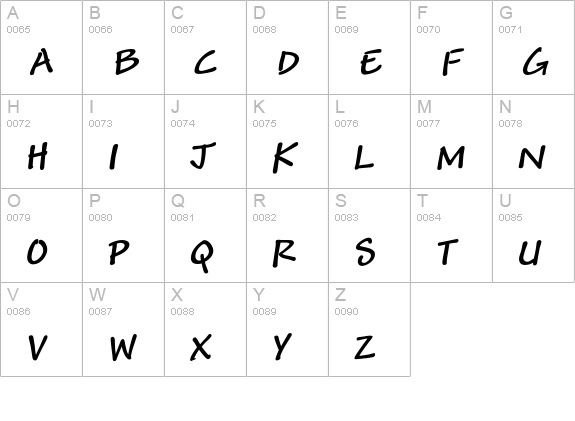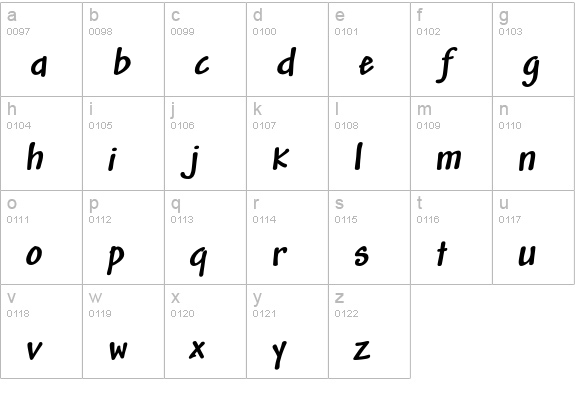
Andy Std Bold Italic is a strong, high-contrast, italic variant in the Andy typeface family \xE2\x80\x94 well suited to headlines, attention-grabbing titles, and strong calls-to-action.
Introducing Andy Std Bold Italic font, a versatile and modern typeface that exudes confidence and sophistication. This font features a bold and italicized design that adds a touch of elegance to any project. Perfect for headings, logos, and other design elements that demand attention, Andy Std Bold Italic font is sure to make a statement. What's even better is that Andy Std Bold Italic font is available for free download at FontsMarket.com. This means you can easily add this stylish font to your collection without any cost. Whether you're a designer looking to enhance your projects or a casual user in need of a standout font, Andy Std Bold Italic font is the perfect choice. Download it today and elevate your designs with this striking typeface.